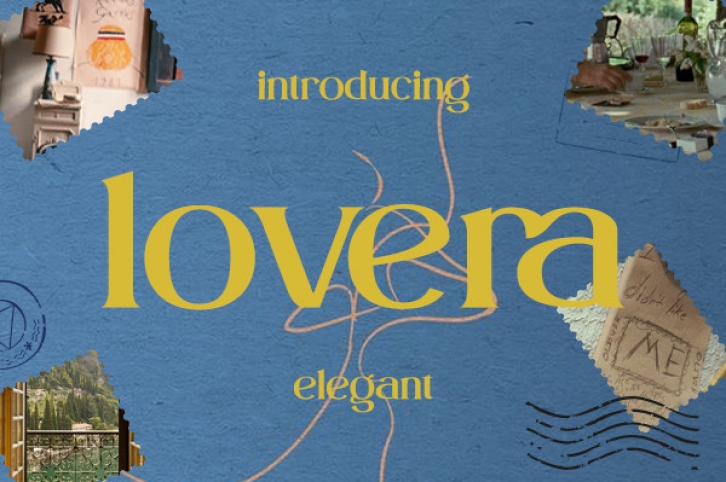
Lovera is a stylish and assertive serif font. It is PUA encoded which means you can access all glyphs and swashes with ease! This font reads as strong, confident, and dynamic and can add tons of stylish character to your designs.